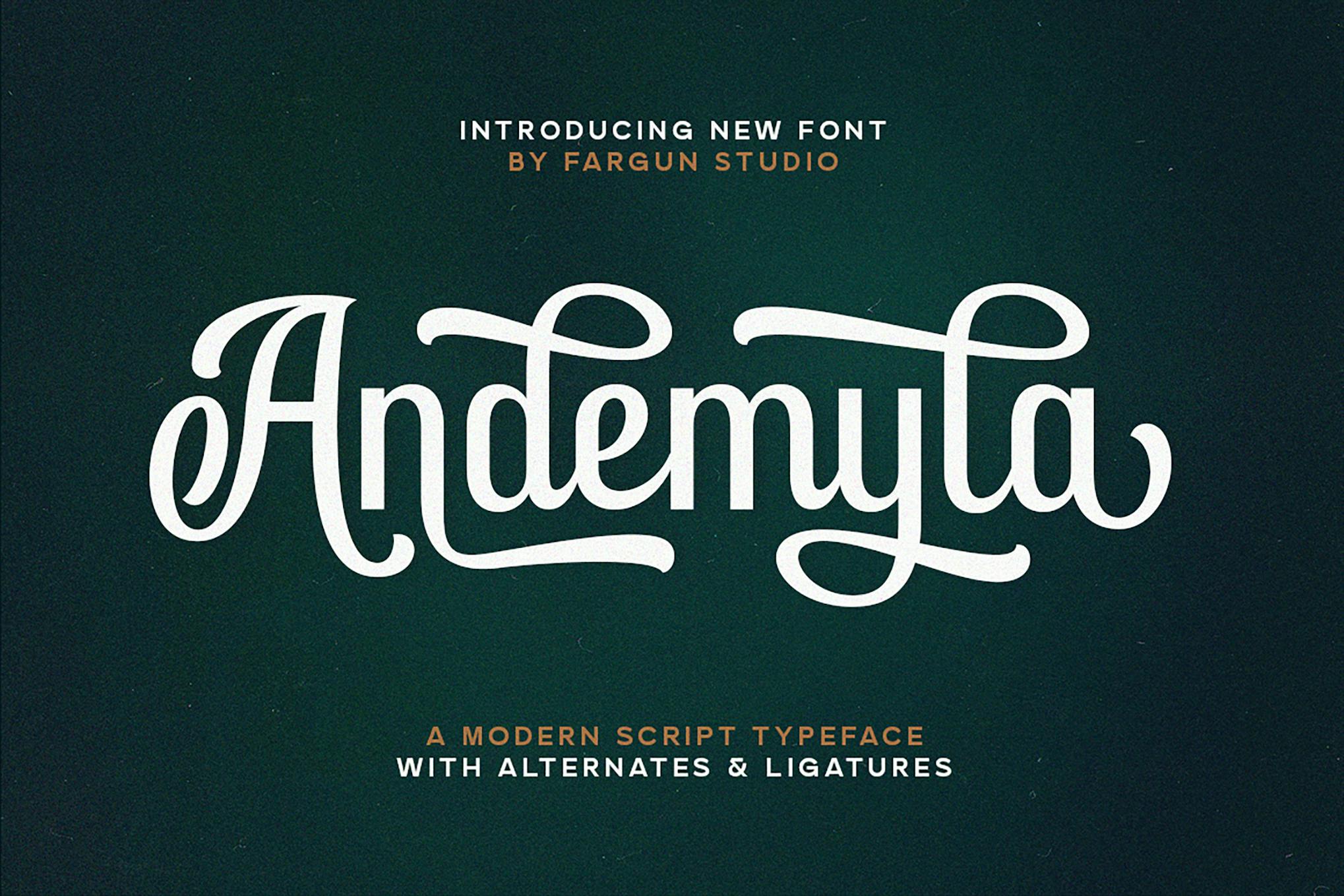
Andemyla Script Font
The Andemyla Script Font is perfect for romantic wedding invitations, elegant branding projects, handwritten logo designs, feminine beauty product packaging, artisan boutique signage, personal stationery design, luxury greeting cards, social media graphics, signature-style branding, and sophisticated calligraphy artwork.
What makes the Andemyla Script Font so exciting is its graceful combination of natural handwriting flow with refined calligraphic elegance. This enchanting typeface features fluid letterforms, delicate connecting strokes, and charming character variations that create an authentic handcrafted appearance perfect for projects requiring personal touch and artistic sophistication. The font's organic rhythm and romantic appeal make it an exceptional choice for brands seeking to communicate warmth, creativity, and genuine human connection.
The Andemyla Script Font family includes stylistic alternates and swash variations, featuring decorative capitals, elegant ligatures, and flourish options. Each variation maintains the signature handwritten charm while offering different levels of ornamental detail, giving designers extensive creative possibilities for customizing text and creating unique visual expressions.
This exceptional Andemyla Script Font Free Download represents the ideal typography choice for designers who want to infuse their projects with authentic handwritten beauty and feminine elegance. Whether you're creating wedding materials, developing a boutique brand identity, or designing personalized stationery, this versatile script font delivers captivating results that resonate with audiences seeking genuine artisanal quality.
The exquisite details of Andemyla Script Font showcase masterful script typography, with each letter carefully crafted to flow seamlessly while maintaining individual character and charm. The font's extensive character set includes uppercase and lowercase letters, numerals, punctuation marks, and special decorative elements, ensuring comprehensive coverage for diverse creative projects and international applications.
Ideally suited for both digital and print media, this beautiful font maintains its elegant flow and readability across various sizes and formats. From large-scale signage to delicate invitation text, Andemyla Script Font adapts gracefully to any design challenge while preserving its distinctive handwritten character and romantic sophistication.